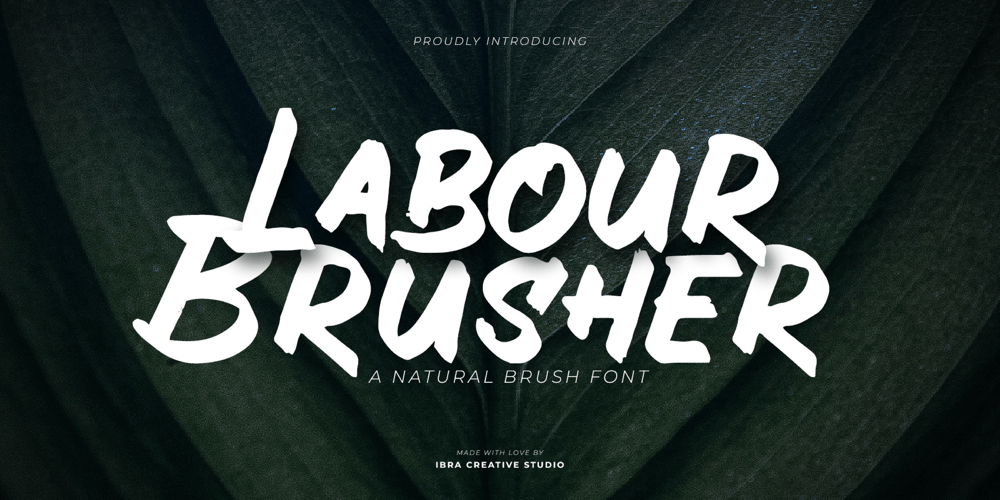
Labour Brusher Font Family was designed by Roisatul Azizah and published by IbraCreative. Labour Brusher contains 1 styles and family package options. Labour Brusher is a captivating natural brush font that seamlessly merges the untamed beauty of nature with the charm of handwritten text. Inspired by the organic strokes of a brush, Labour Brusher brings a touch of authenticity and warmth to any design. Each letter exudes a natural flow and a sense of imperfect elegance, capturing the essence of a brushstroke on paper. With its textured appearance and irregular shapes, Labour Brusher adds a rustic and handmade feel to logos, packaging, and creative projects. This font beautifully combines the ruggedness of nature with the versatility of brushwork, making it a versatile choice for designs that seek to evoke a sense of earthiness and artistic flair.